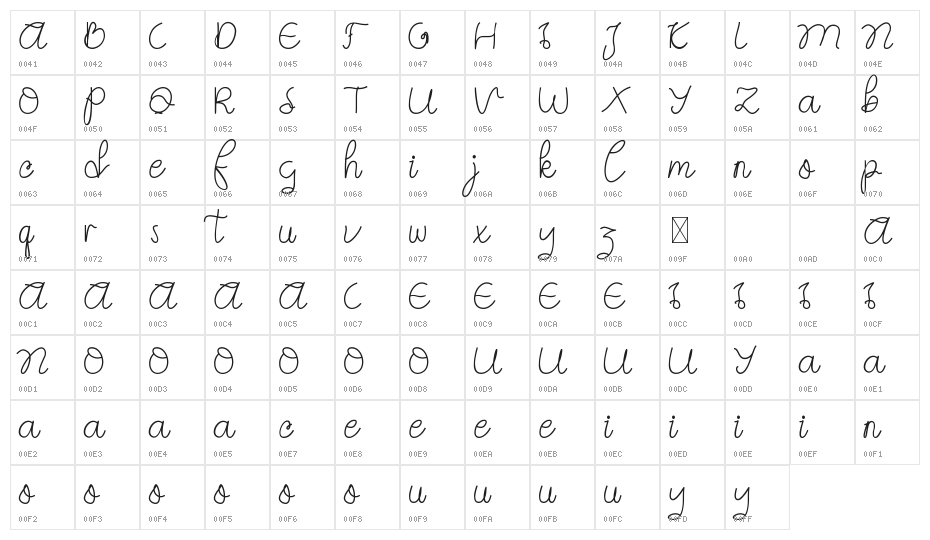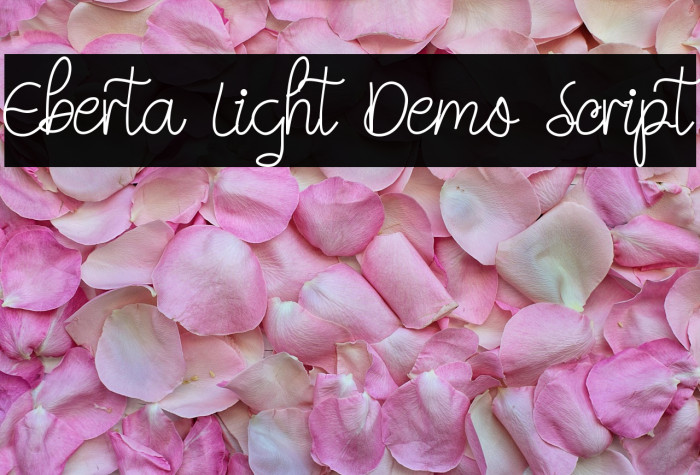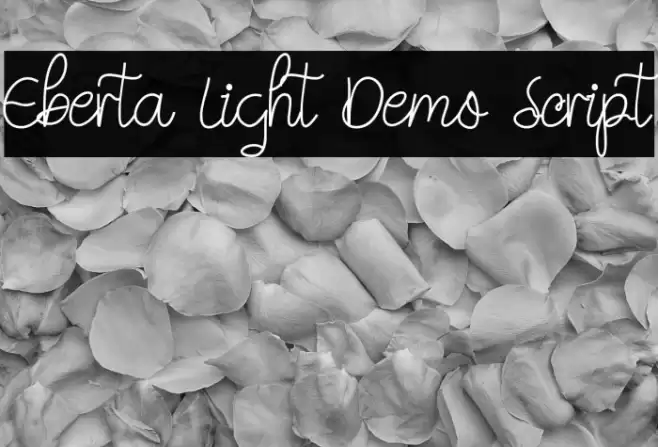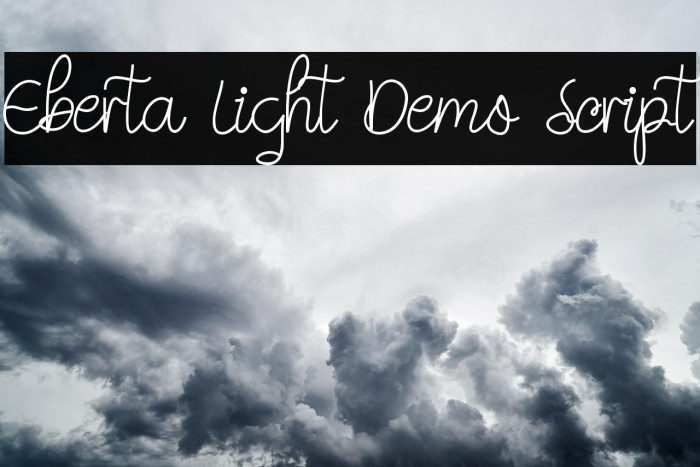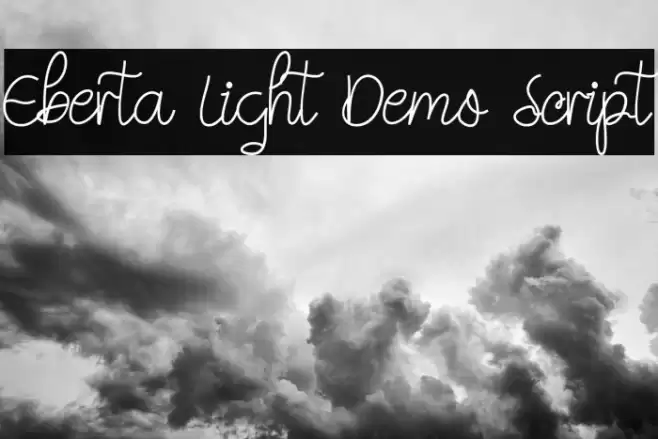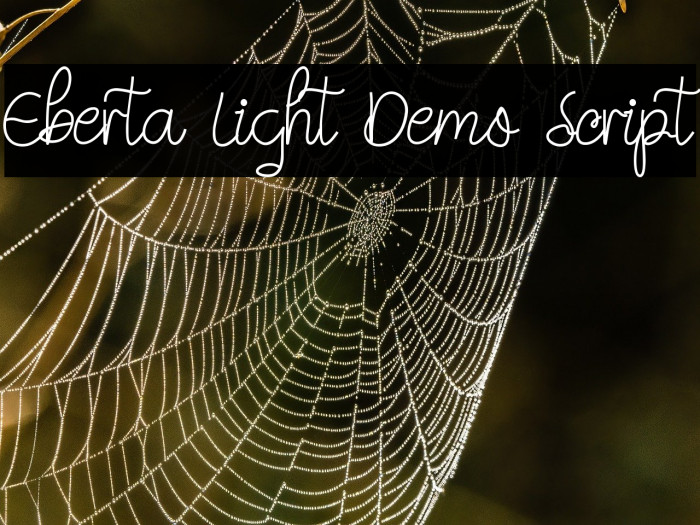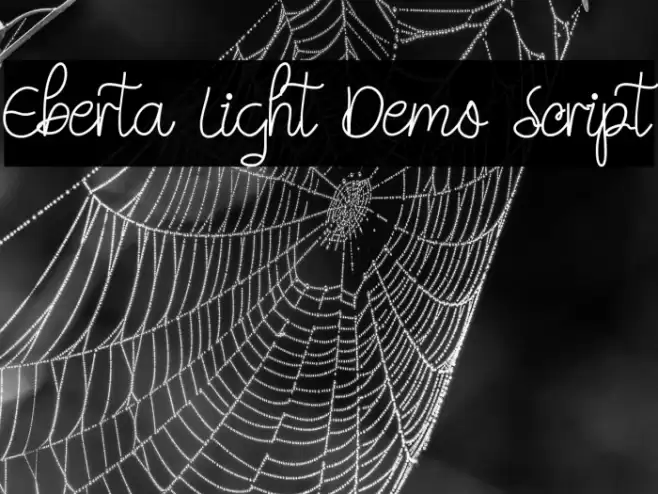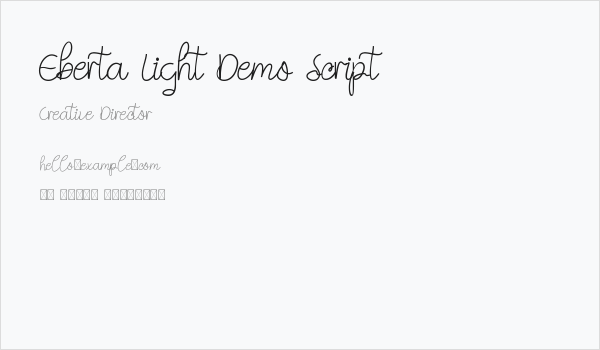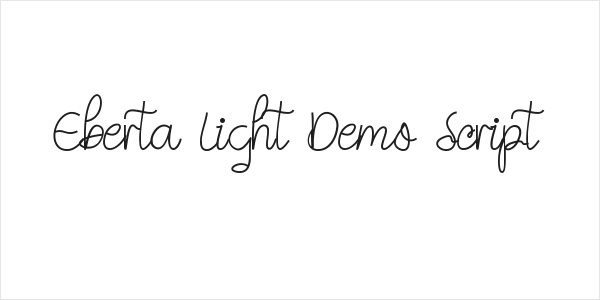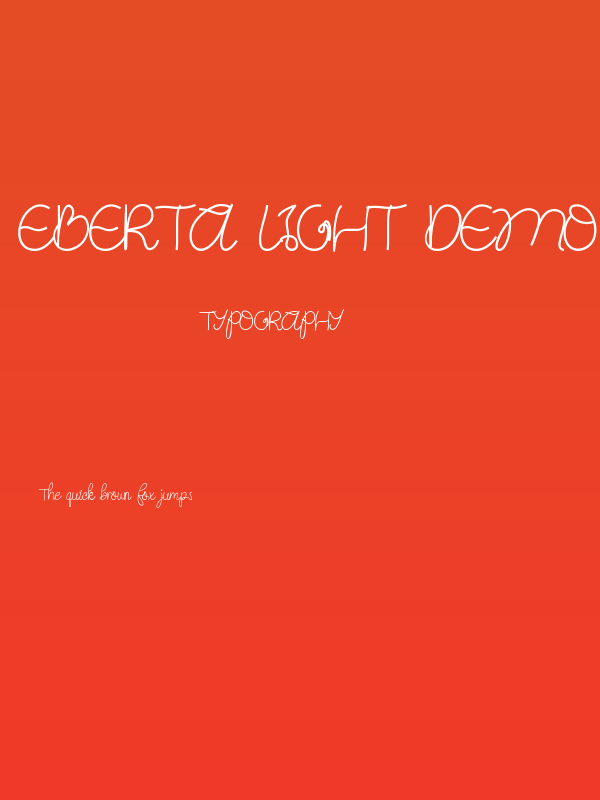
Eberta Light Demo Script Font
Eberta Light Demo Script Description
This font exhibits a flowing, cursive style that mimics elegant handwriting. The characters are interconnected with smooth, continuous strokes, giving it a natural and fluid appearance. The uppercase letters are slightly more ornate, with loops and swirls that add a touch of sophistication. The lowercase letters maintain a consistent flow, enhancing readability while preserving the script's artistic flair. The numbers and special characters are designed to match the overall aesthetic, ensuring a cohesive look across all text elements. This font is ideal for projects that require a personal, handwritten touch, such as invitations, greeting cards, or branding materials.
| Proposed Projects | Ideal for invitations, greeting cards, branding, and personal projects requiring a handwritten touch. |